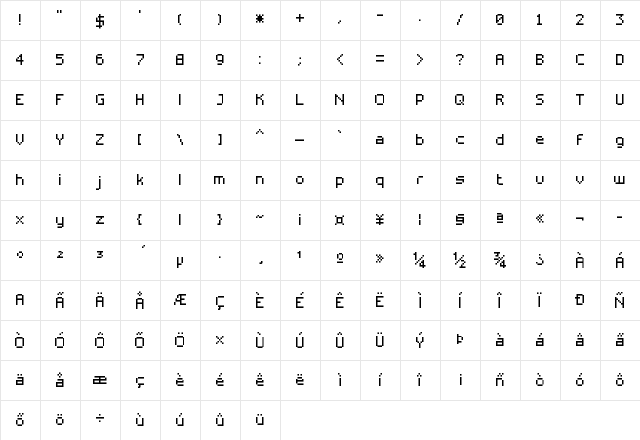
klonder pixel Regular
Design Context for klonder pixel Typeface
klonder pixel is rooted in pixel-grid construction, making it a natural fit for game UI, retro computing aesthetics, and digital nostalgia projects.
A natural choice for retro game titles, chiptune music branding, 8-bit UI, and digital nostalgia projects.
Pro Tip: Pair klonder pixel with flat colour palettes and simple geometric UI elements to reinforce its digital aesthetic.